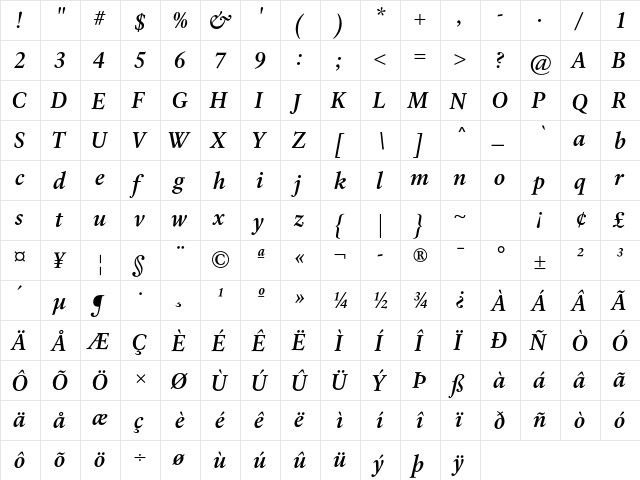
Laurentian Std SemiBold It
Design Context for Laurentian Std Typeface
Laurentian Std offers clean, dependable letterforms without strong stylistic allegiance, making it a practical choice for designers who need flexibility. Its bold stroke weight gives it real presence on the page.